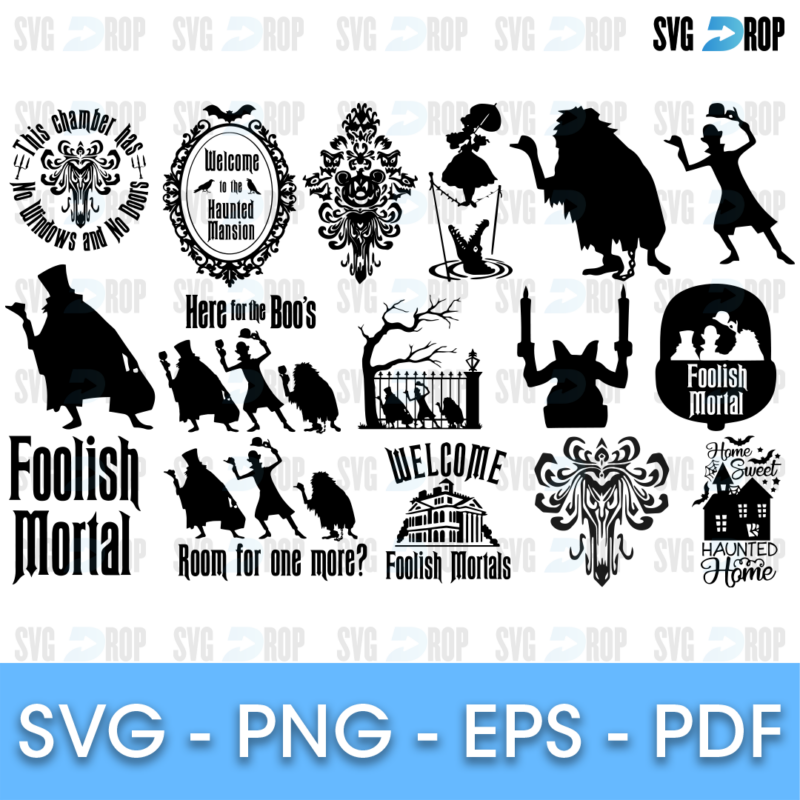
Haunted Mansion Font SVG
✨ A Haunted Mansion style alphabet in tall, narrow black gothic capitals with numbers, shown beside a dark old mansion.
👻 Personalised names for Halloween shirts, spooky party banners, cake toppers and signs.